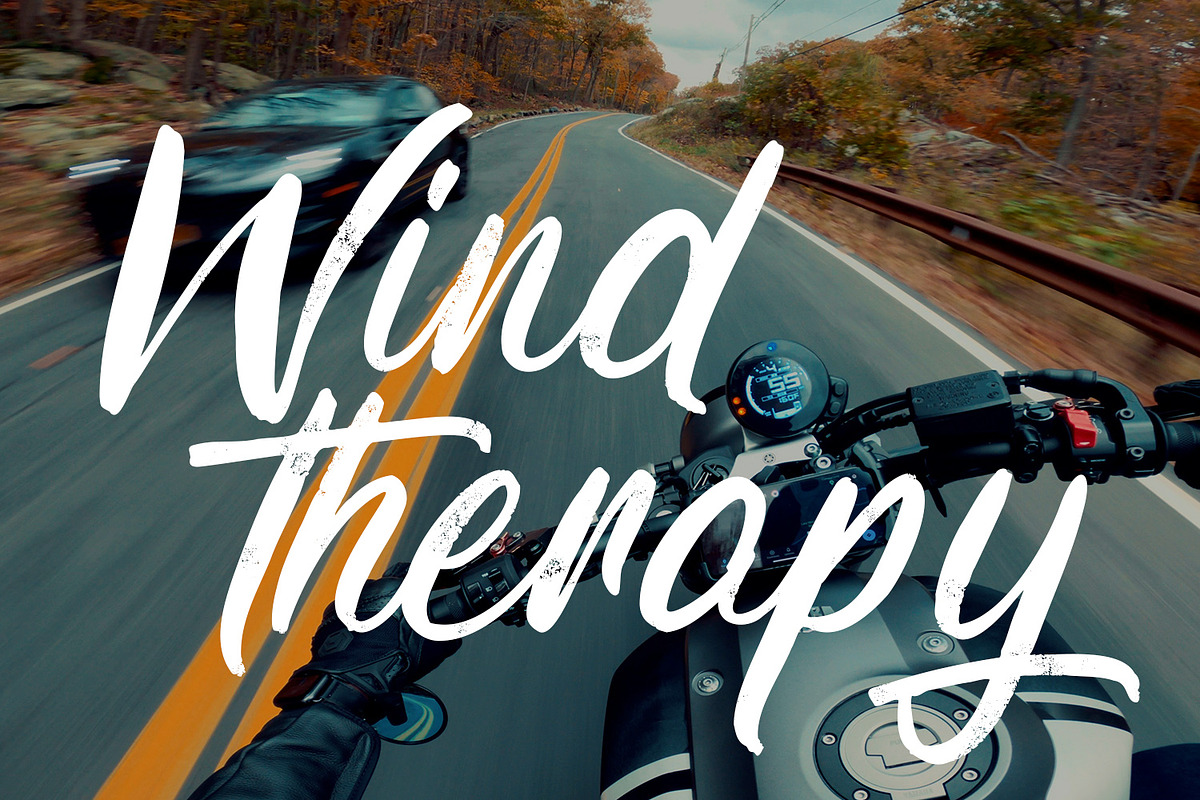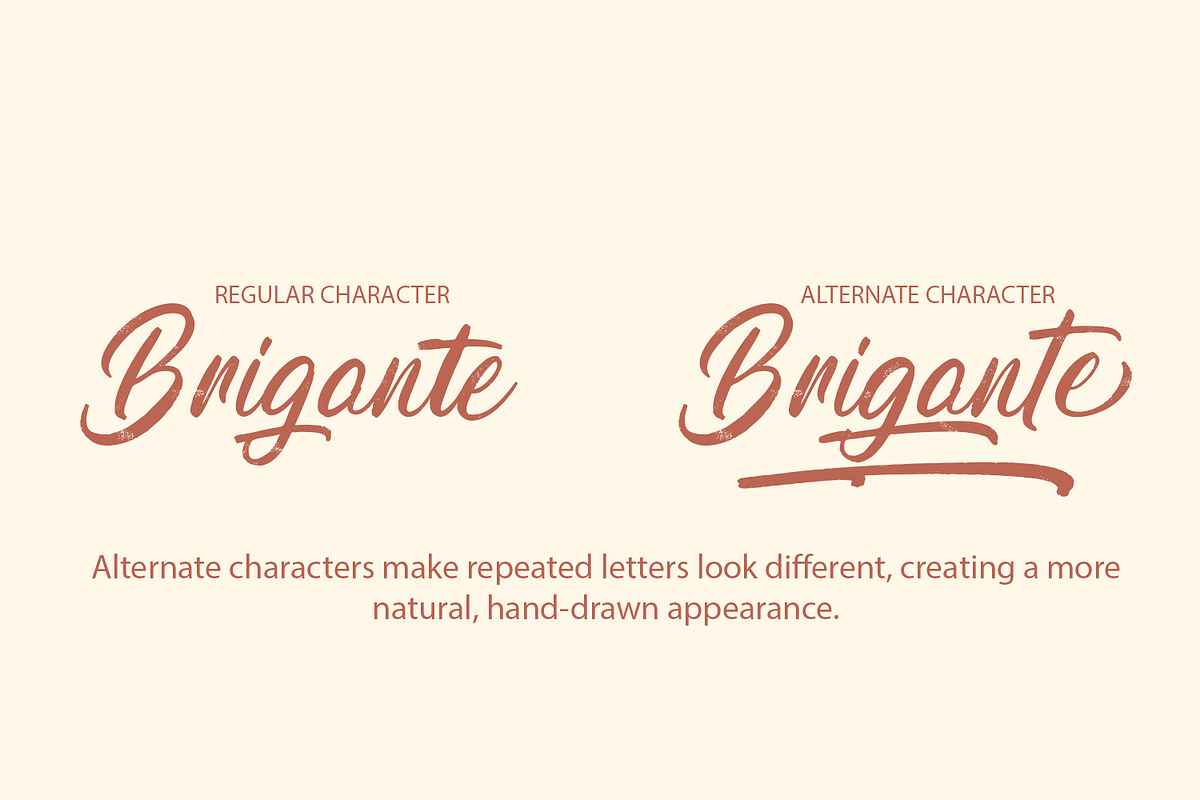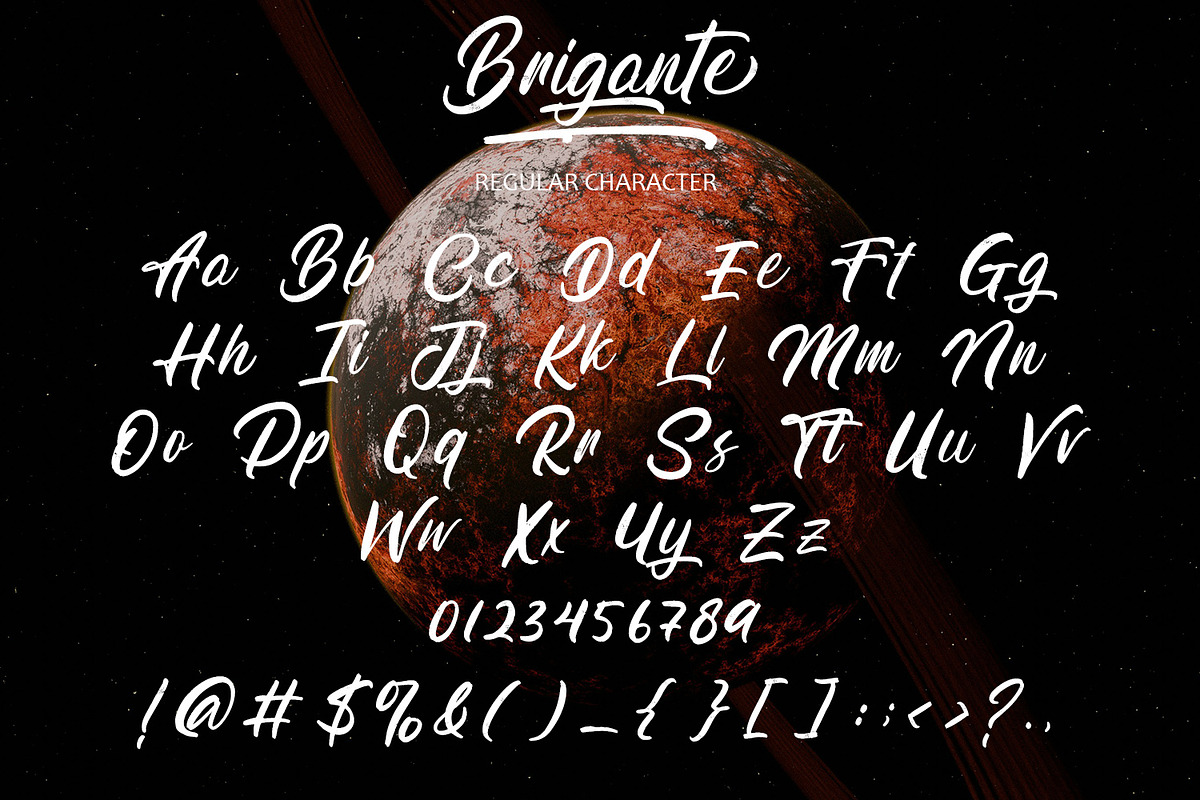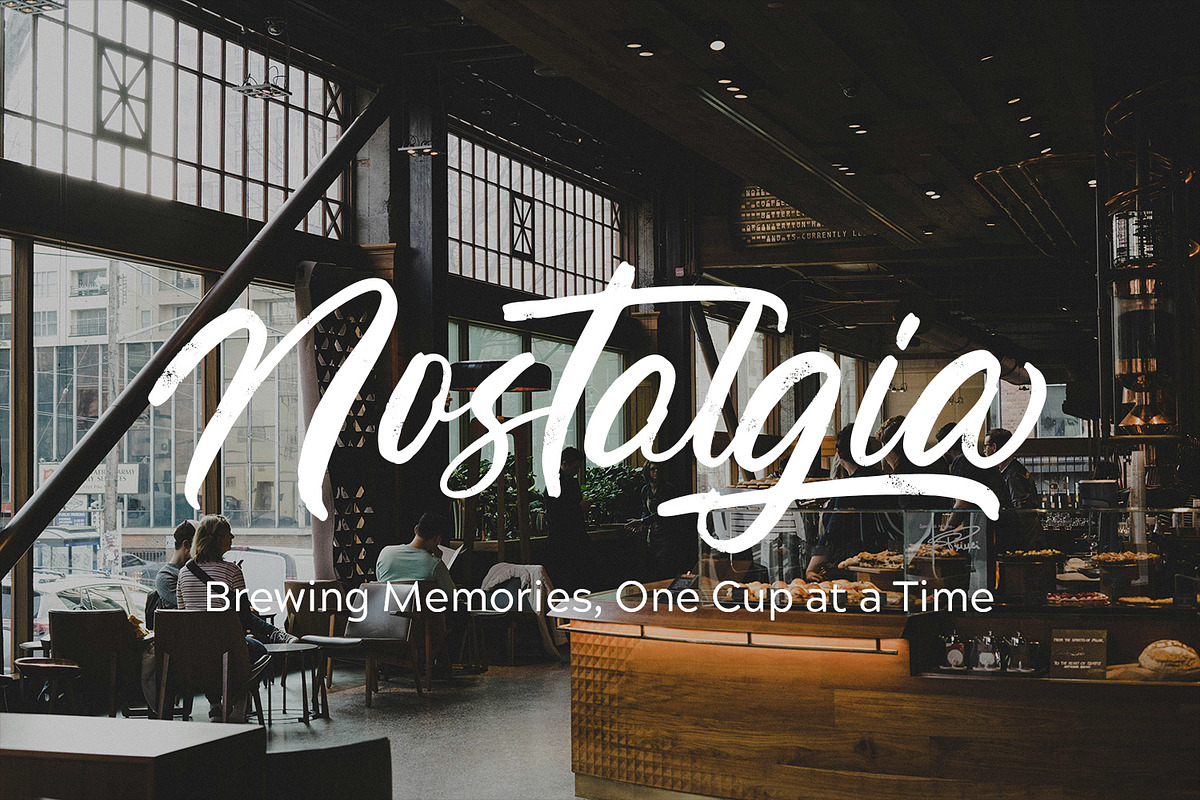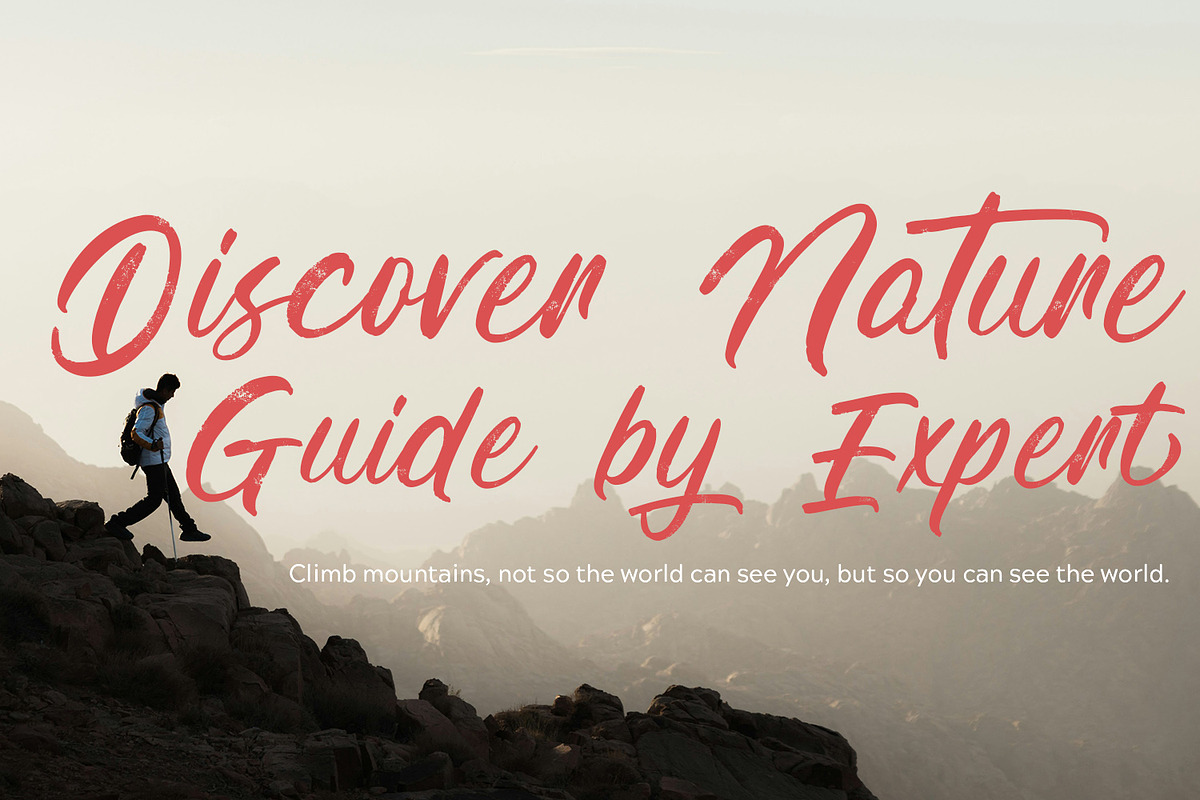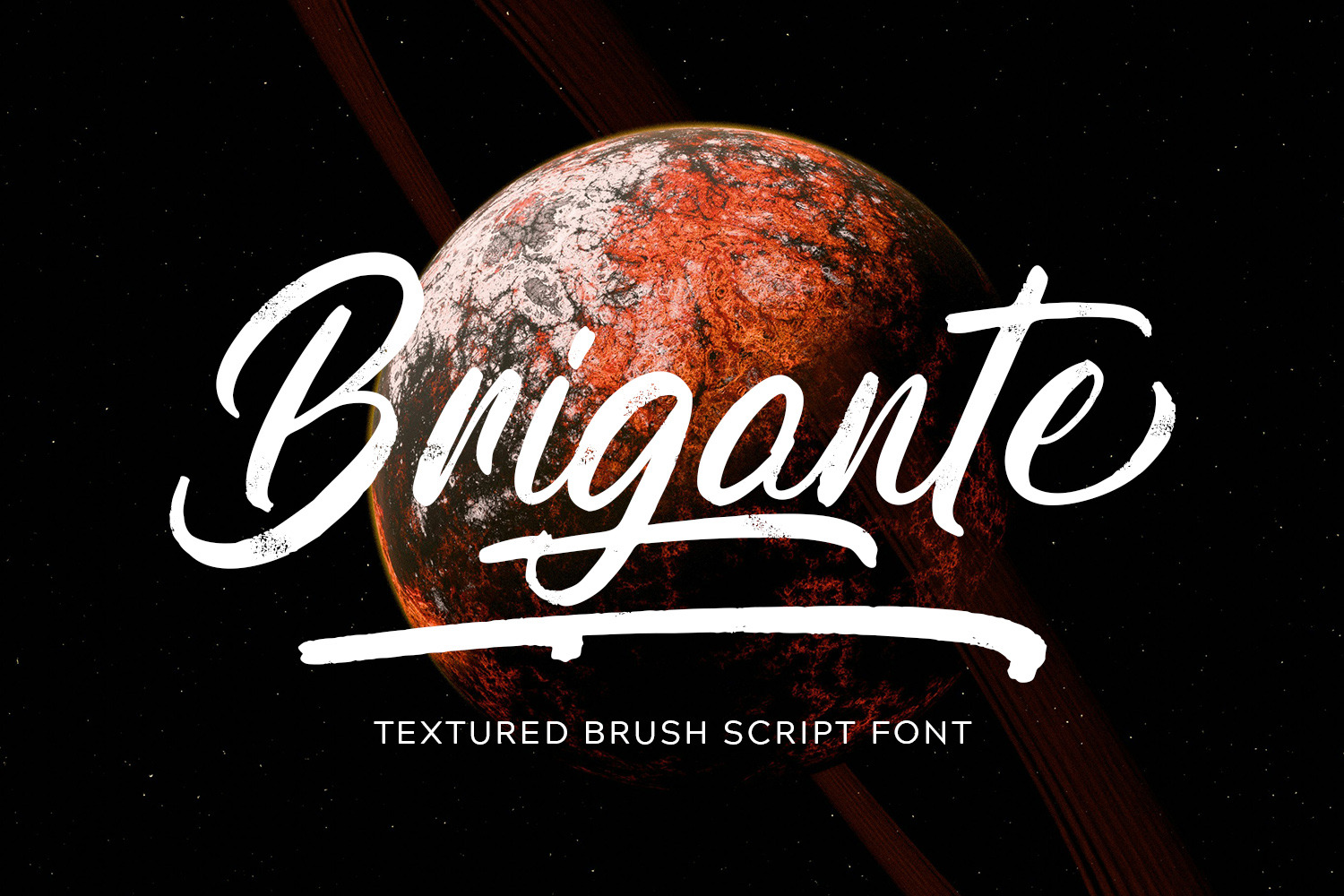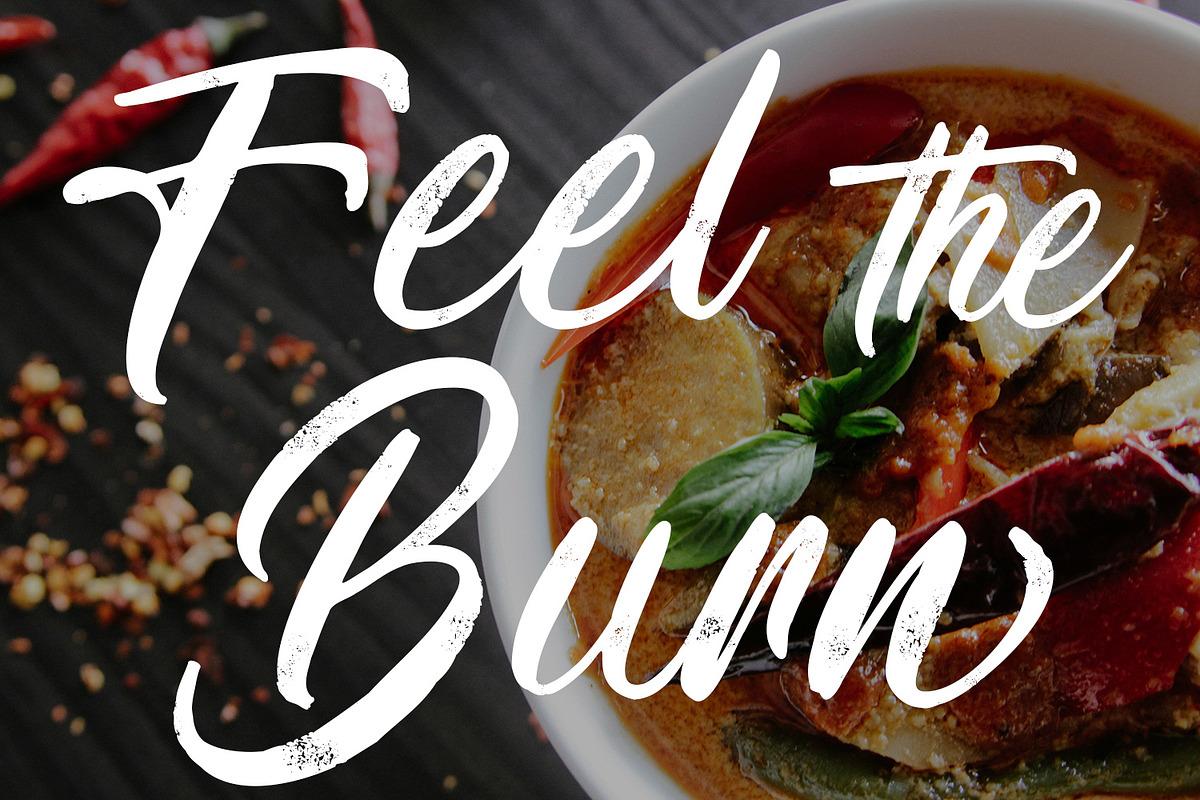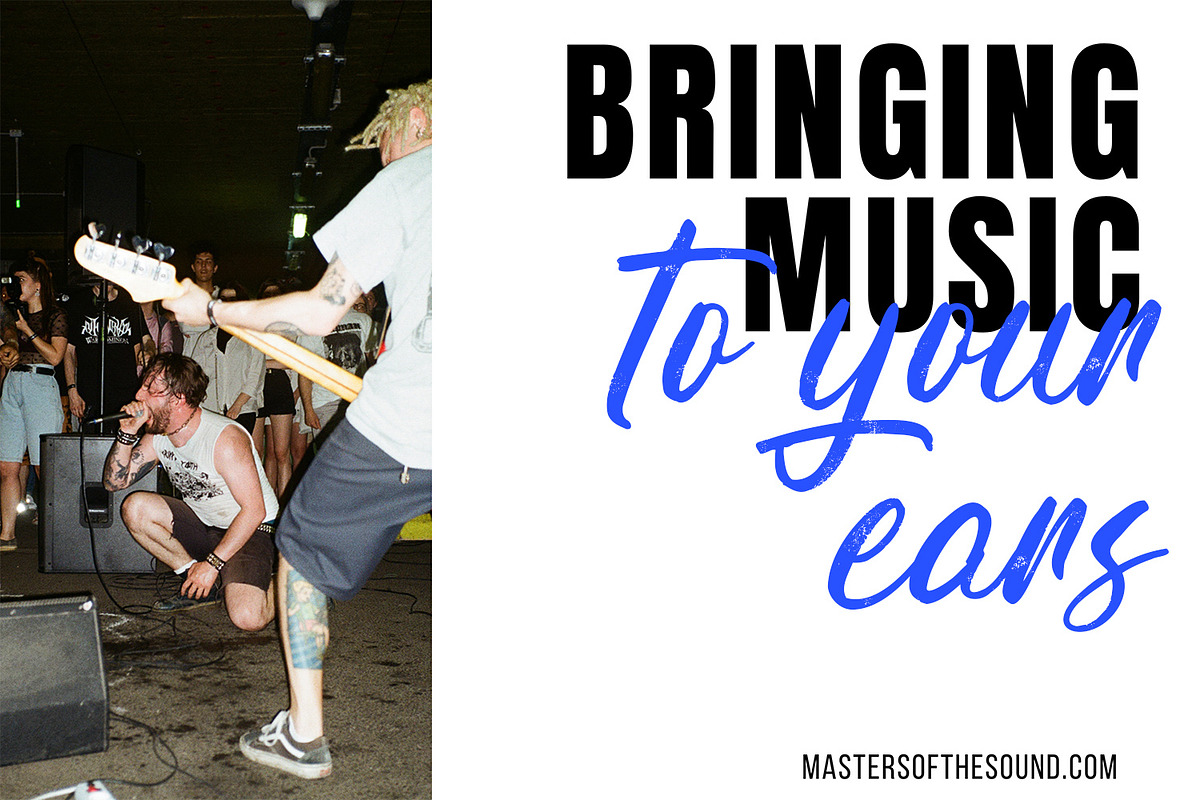
Brigante – Brush Script Font
Brigante is a bold textured brush script font that delivers raw energy and expressive character to your designs. With its handcrafted strokes and authentic brush texture, this typeface adds a dynamic, impactful feel that’s perfect for headlines, branding, posters, and digital art. Brigante’s natural flow and textured details bring a sense of motion and attitude, making every word stand out with confidence. Whether you’re aiming for an urban edge, a sporty vibe, or a powerful statement, Brigante is the font that will give your projects an unforgettable presence.
* Uppercase Letters
* Numbers & Punctuation
* Ligature & Alternate Character
* Unique Hand-Drawn Style